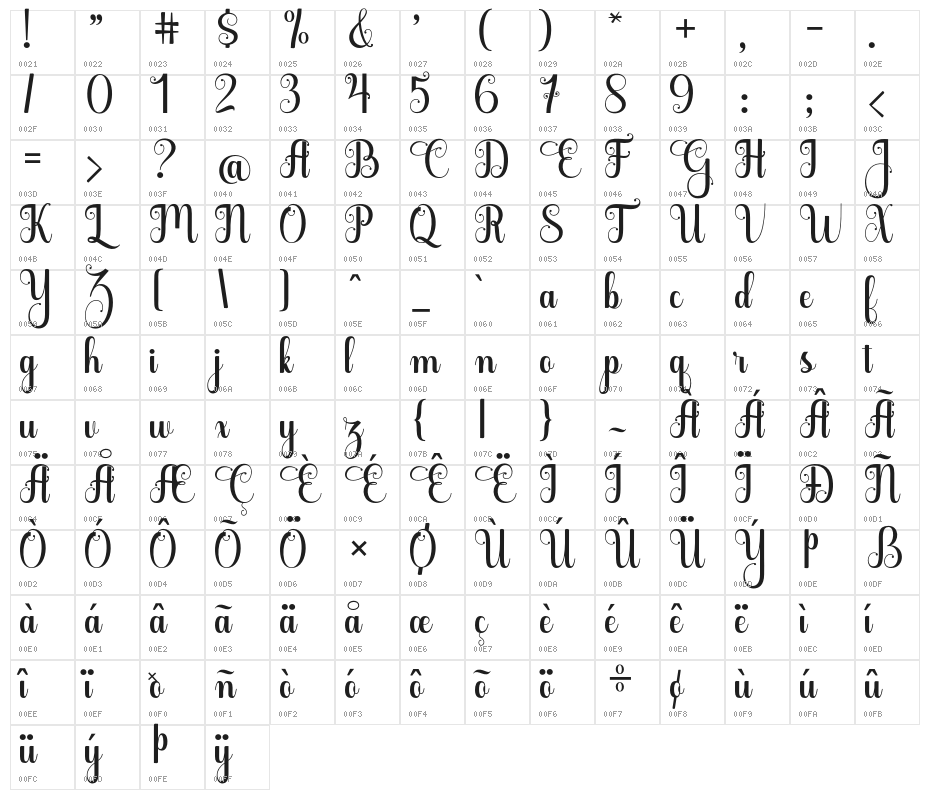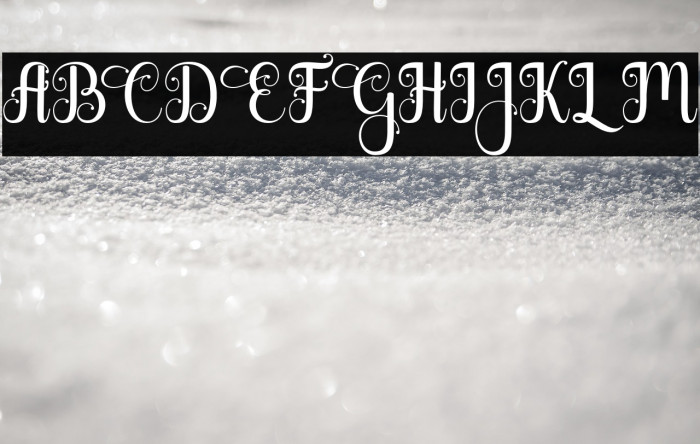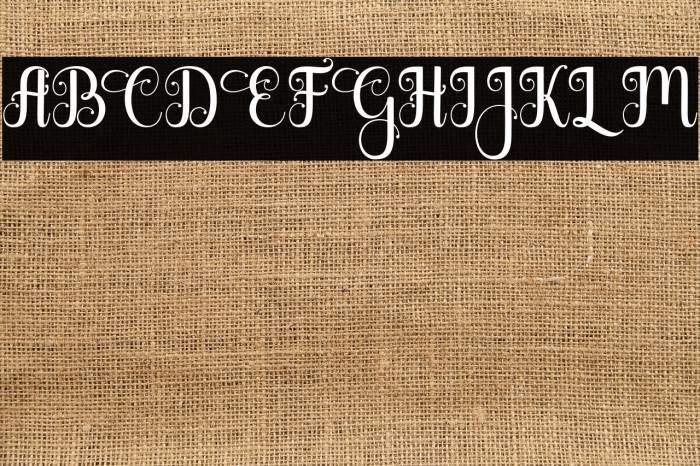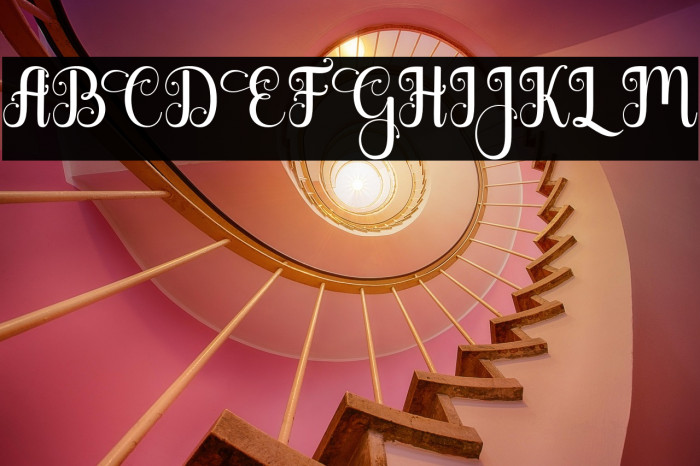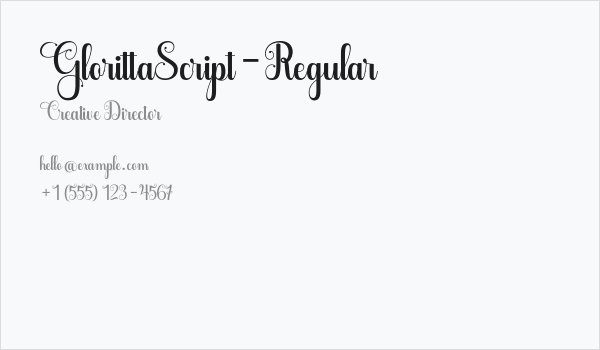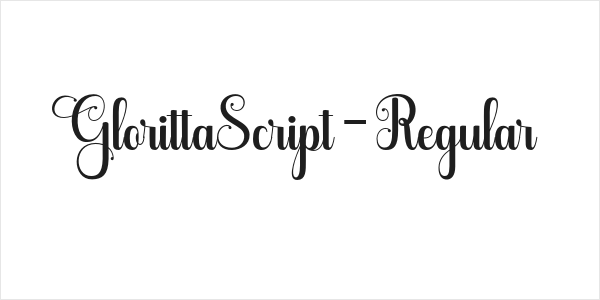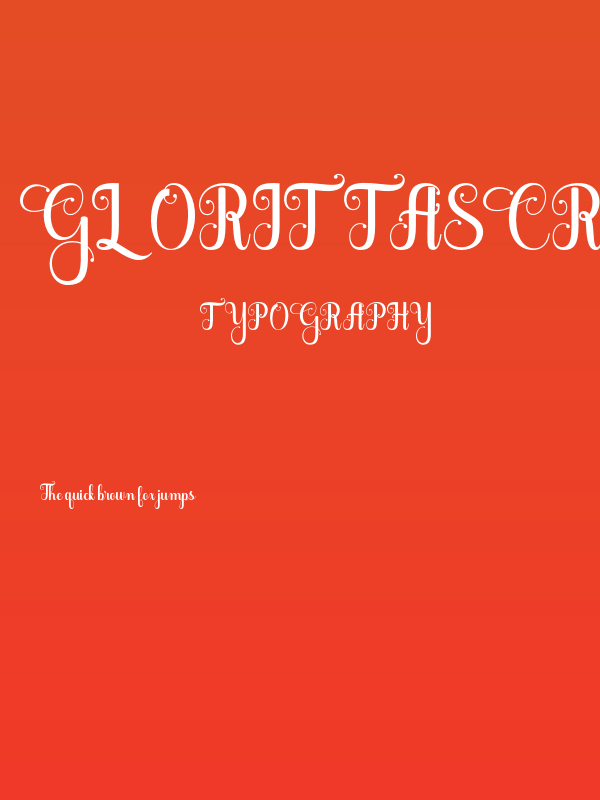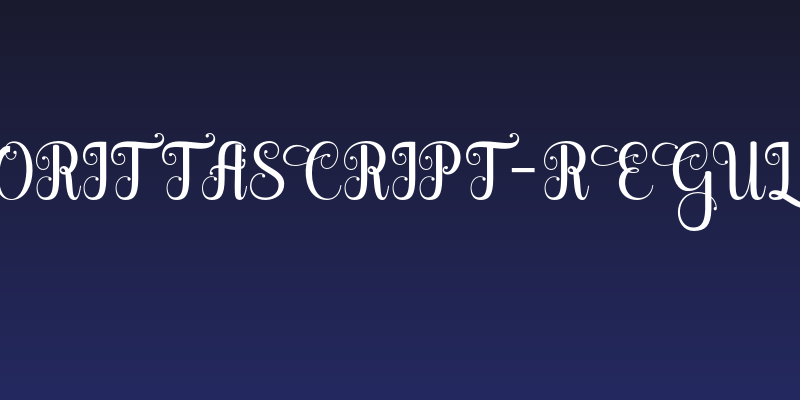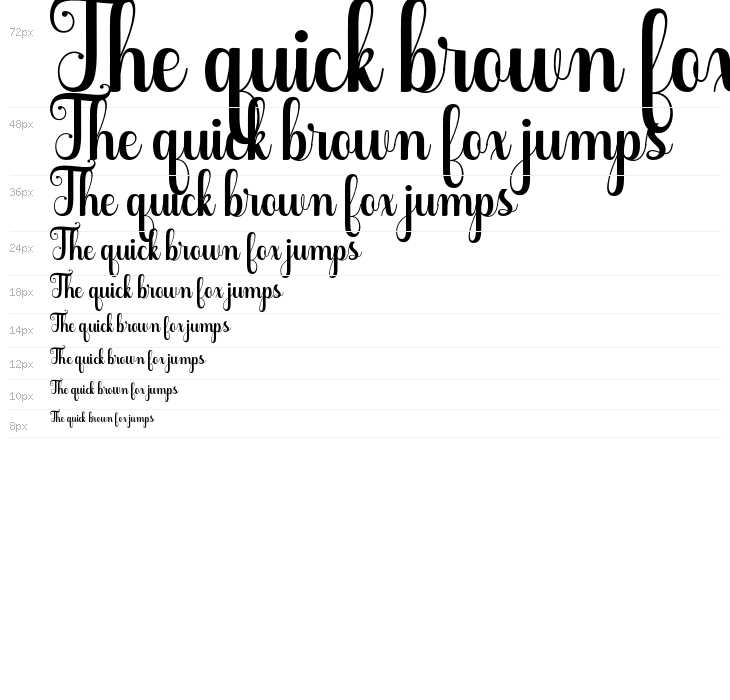
GlorittaScript-Regular Font
GlorittaScript-Regular Description
This elegant script font features a flowing, cursive style with intricate swirls and loops that give it a sophisticated and decorative appearance. The uppercase letters are particularly ornate, with flourishes that extend beyond the baseline and cap height, adding a touch of grandeur. The lowercase letters maintain a consistent flow, with smooth connections between characters, enhancing readability while retaining an artistic flair. The numerals and special characters are equally embellished, making them suitable for decorative purposes. This font's overall design is both graceful and bold, making it ideal for projects that require a touch of elegance and creativity.
| Use Case | Logos, Invitations, Decorative text |
| Proposed Projects | Ideal for wedding invitations, greeting cards, branding, and logo design. |